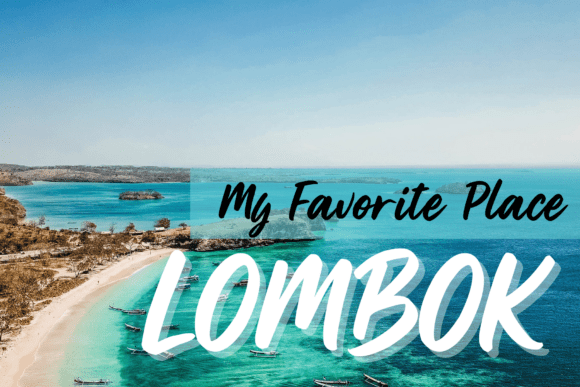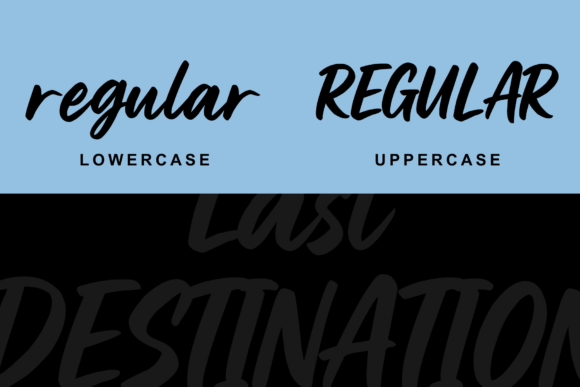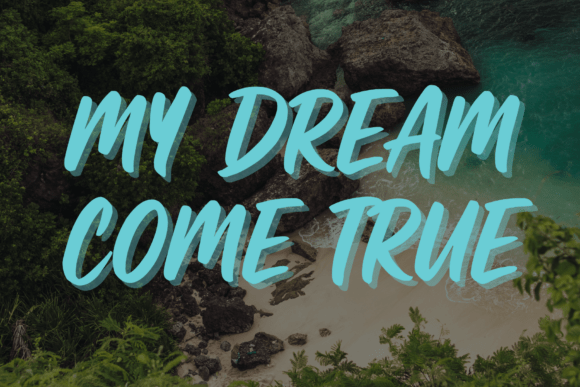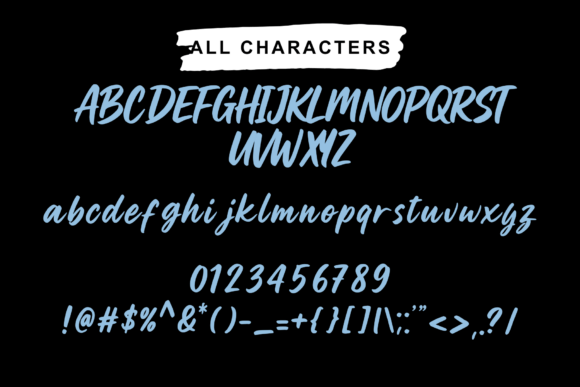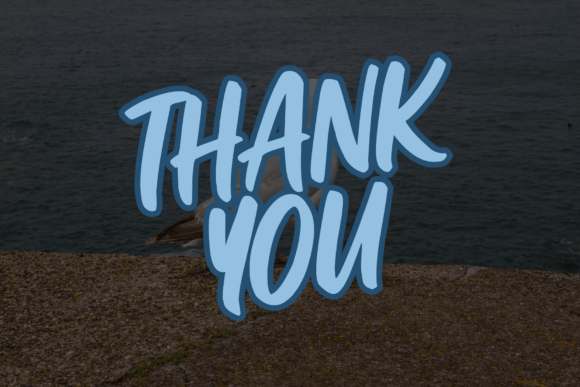
Introduction to Last Destination Font Font
Fonts play a crucial role in design, and the Last Destination Font font is a typeface that brings both character and versatility to any project. Whether you’re working on a branding project, a website, or a print design, the Last Destination Font font offers a unique style that can elevate your work.
Experience the charm and elegance embodied in this mesmerizing script font.
Resplendent in its nod to timeless calligraphy, this font skilfully infuses a sense of sophistication into any design endeavor It seamlessly intertwines classic aesthetic and modern design, making it an ideal choice for a range of projects – from enhancing branding identities to crafting captivating titles or exquisite wedding designs.
Key Features of Last Destination Font Font
Why Choose Last Destination Font Font?
The Last Destination Font font is more than just a typeface – it’s a design tool that helps you communicate your message with style and clarity. Its unique character set and versatile design make it suitable for a wide range of applications, from elegant invitations to bold headlines.
With its carefully crafted letterforms and balanced proportions, the Last Destination Font font ensures readability and visual appeal across all mediums.
What makes Last Destination Font font special?
The Last Destination Font font stands out with its unique design, exceptional readability, and versatility across various design applications.